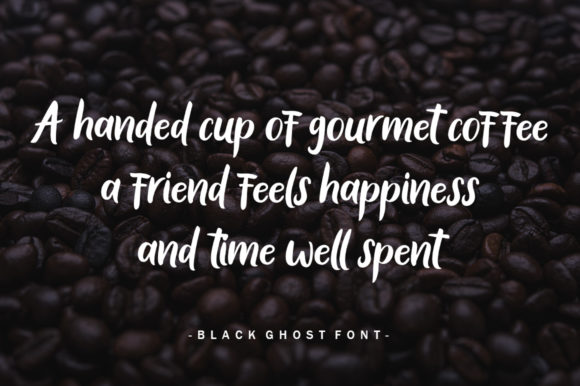
Black Ghost Font
Black Ghost is a classy script font, featuring a nice flow. This font is ideal for logos, headings, branding, and quotes. Each letter has a unique and beautiful touch.